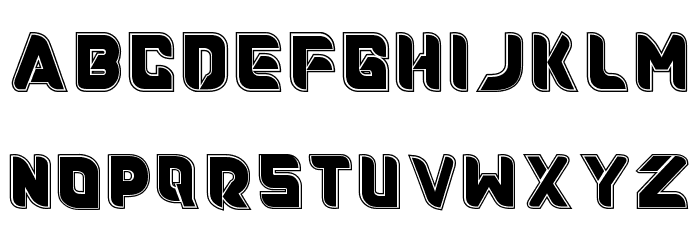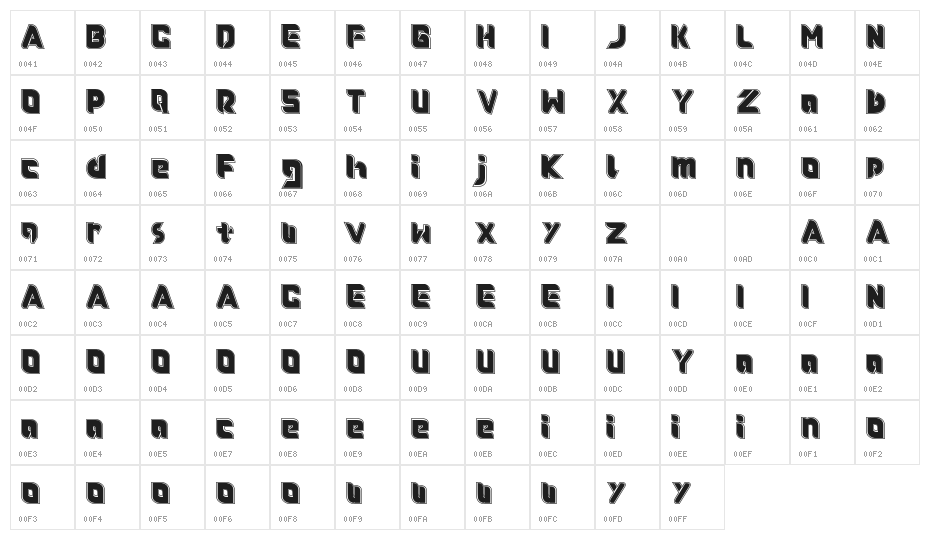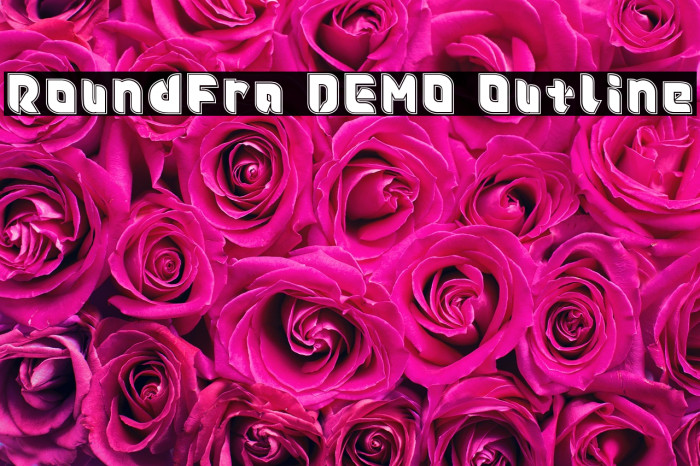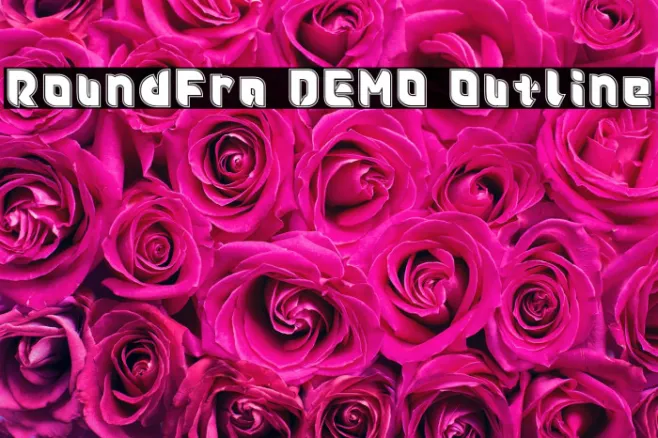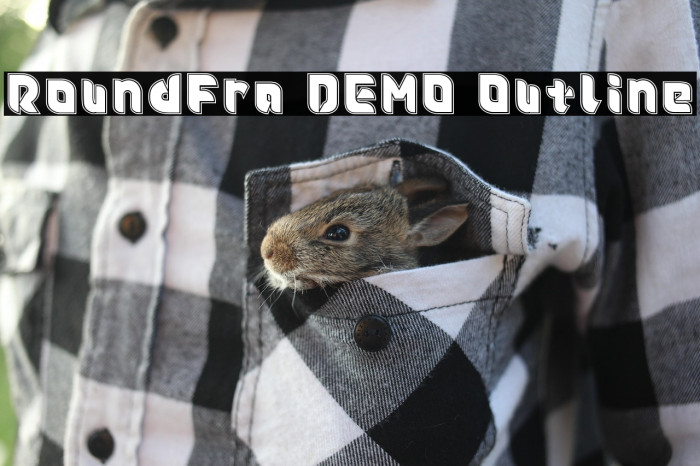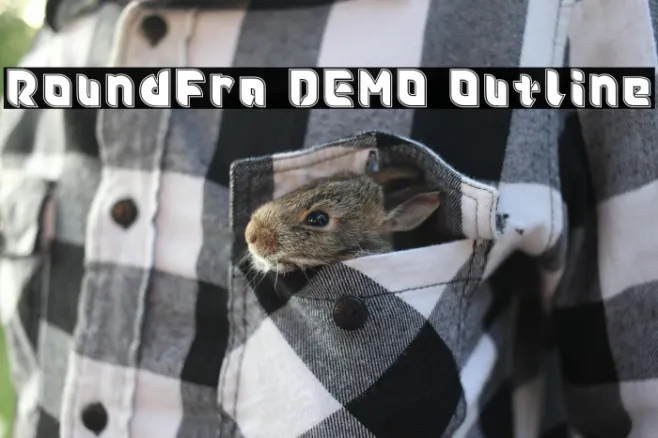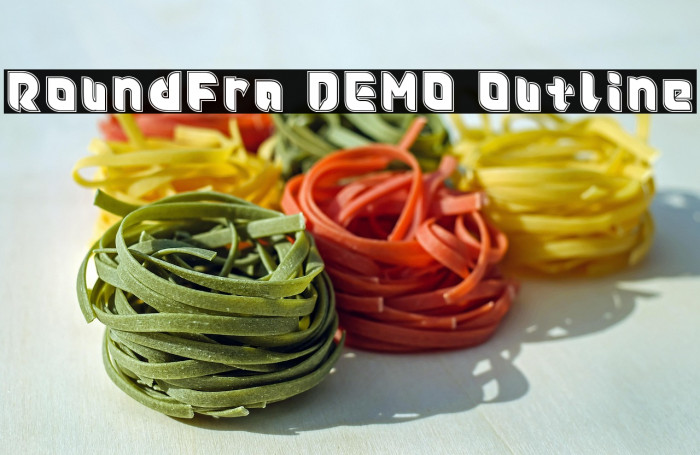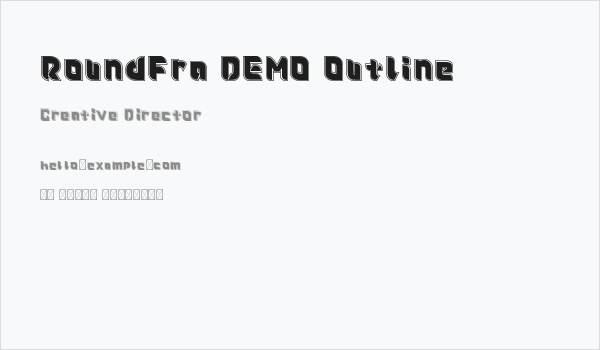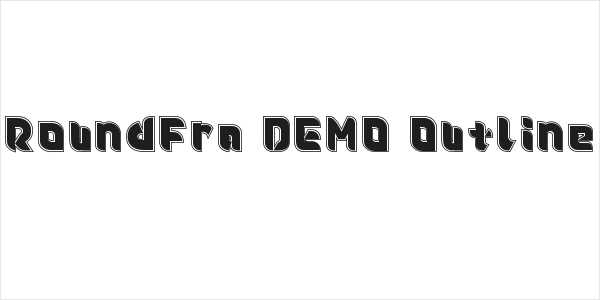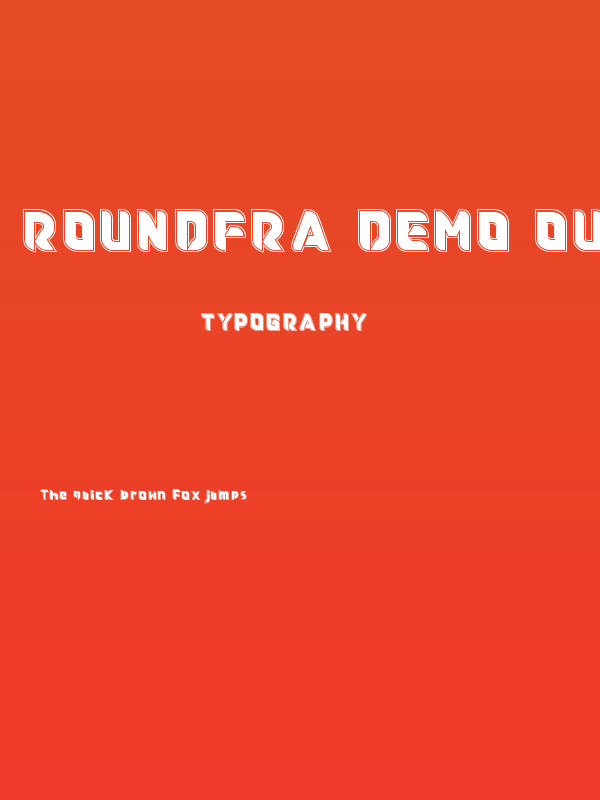
Roundfra DEMO Outline Font
Roundfra DEMO Outline Description
This font features a bold, geometric design with a distinct outline style. The characters are constructed with sharp angles and clean lines, creating a modern and futuristic appearance. The uppercase and lowercase letters maintain a consistent style, with the lowercase mirroring the uppercase in form and structure. The numbers and special characters are designed to match the overall aesthetic, ensuring uniformity across all glyphs. The outlined nature of the font adds a layer of depth, making it suitable for eye-catching designs. Its unique style is ideal for projects that require a strong visual impact.